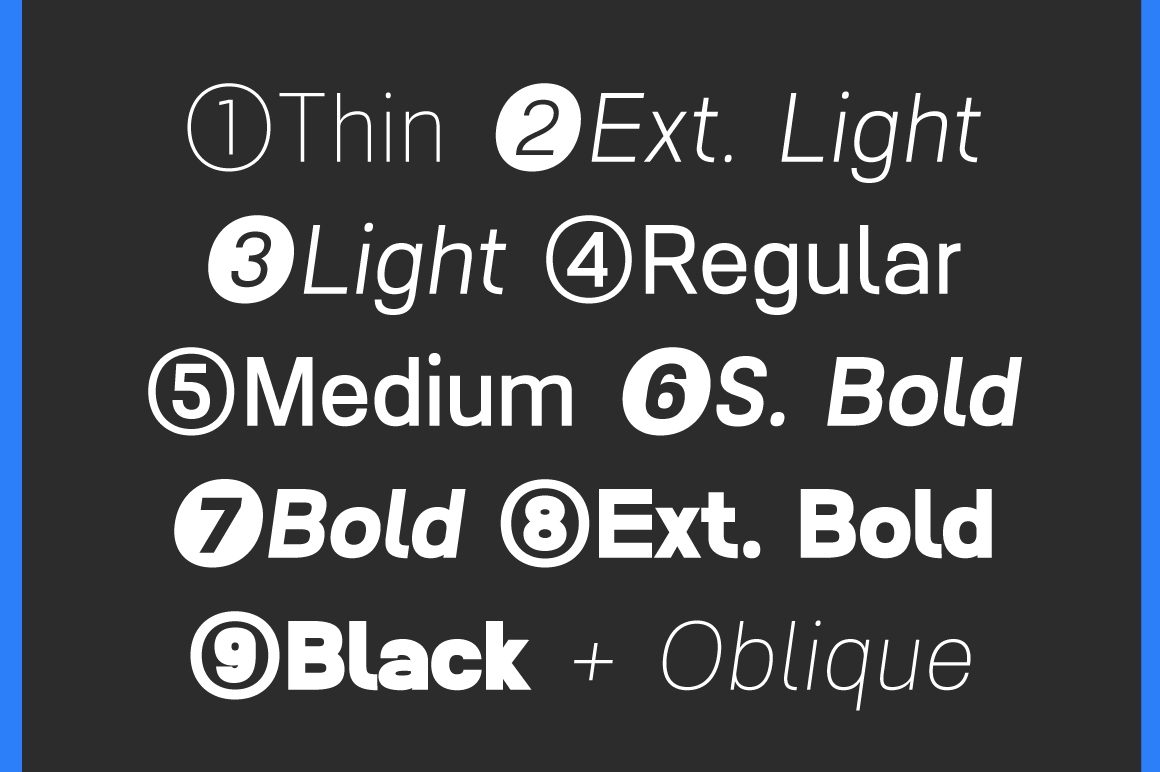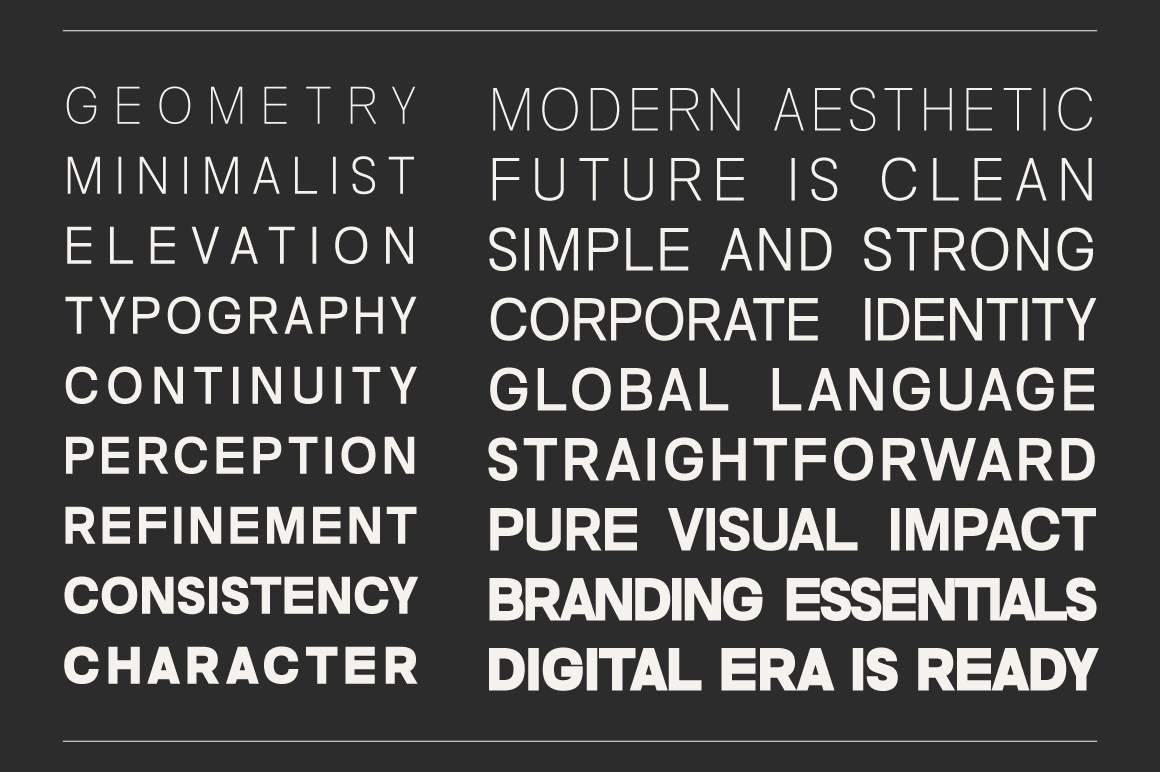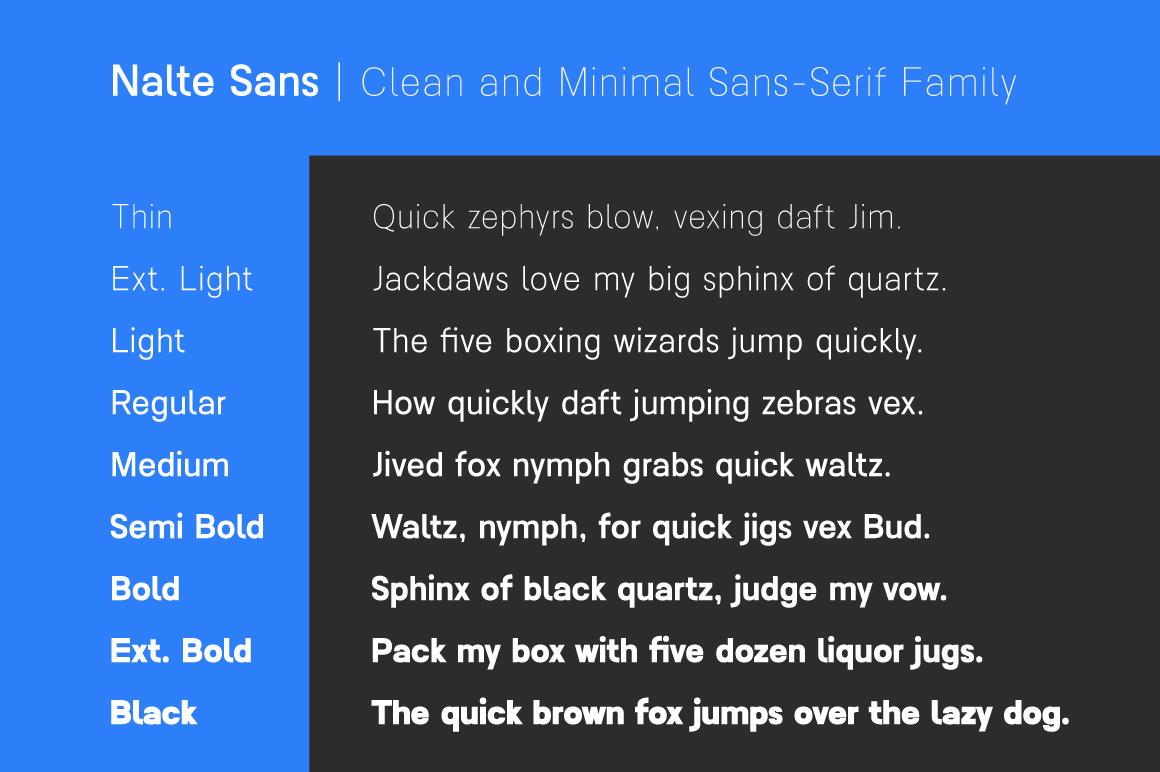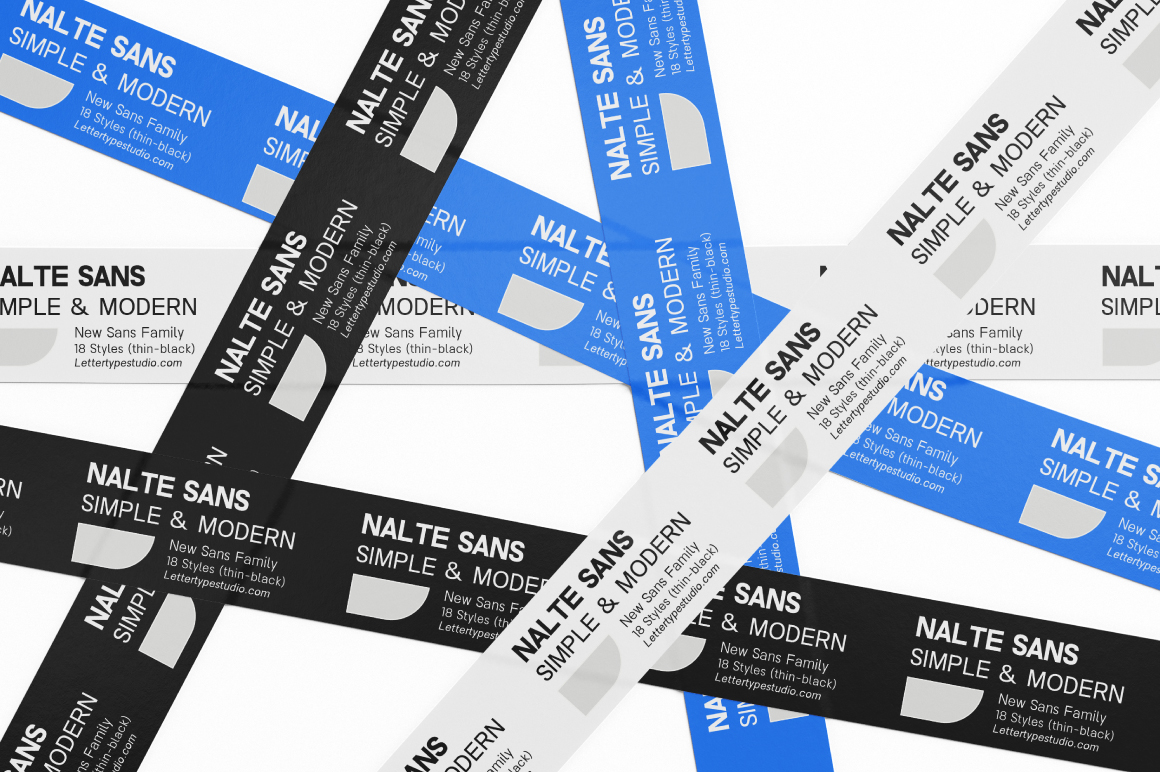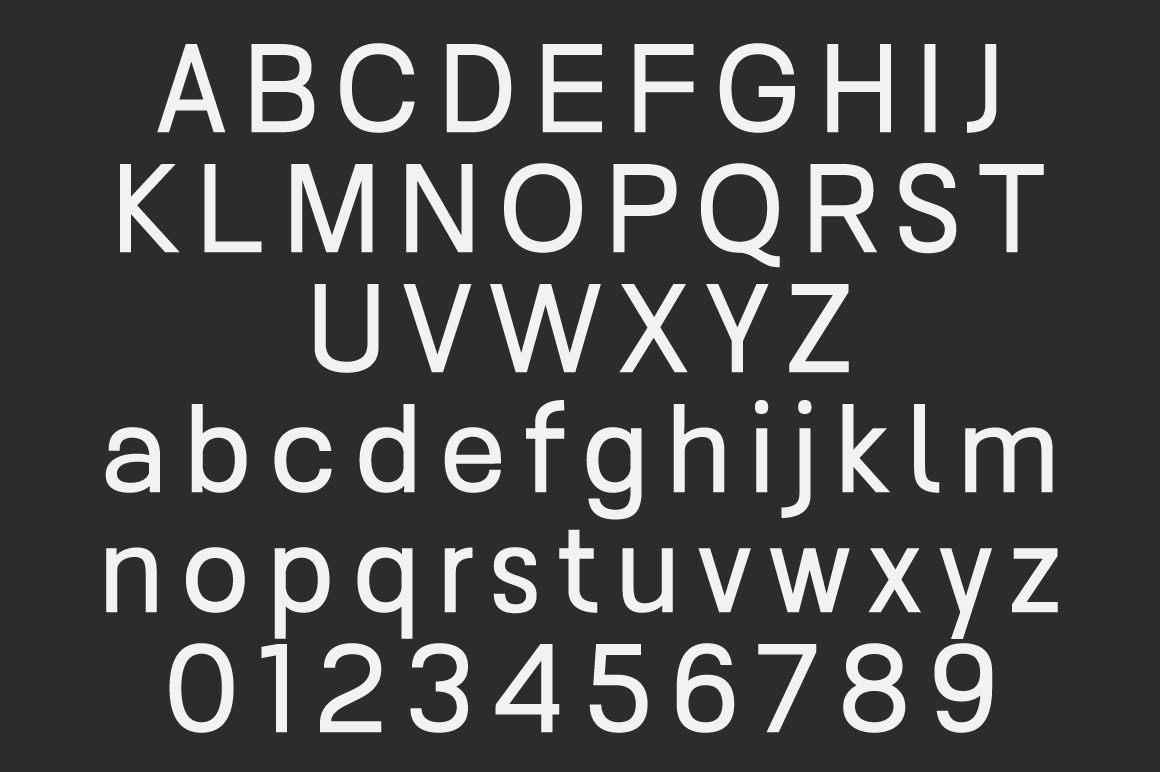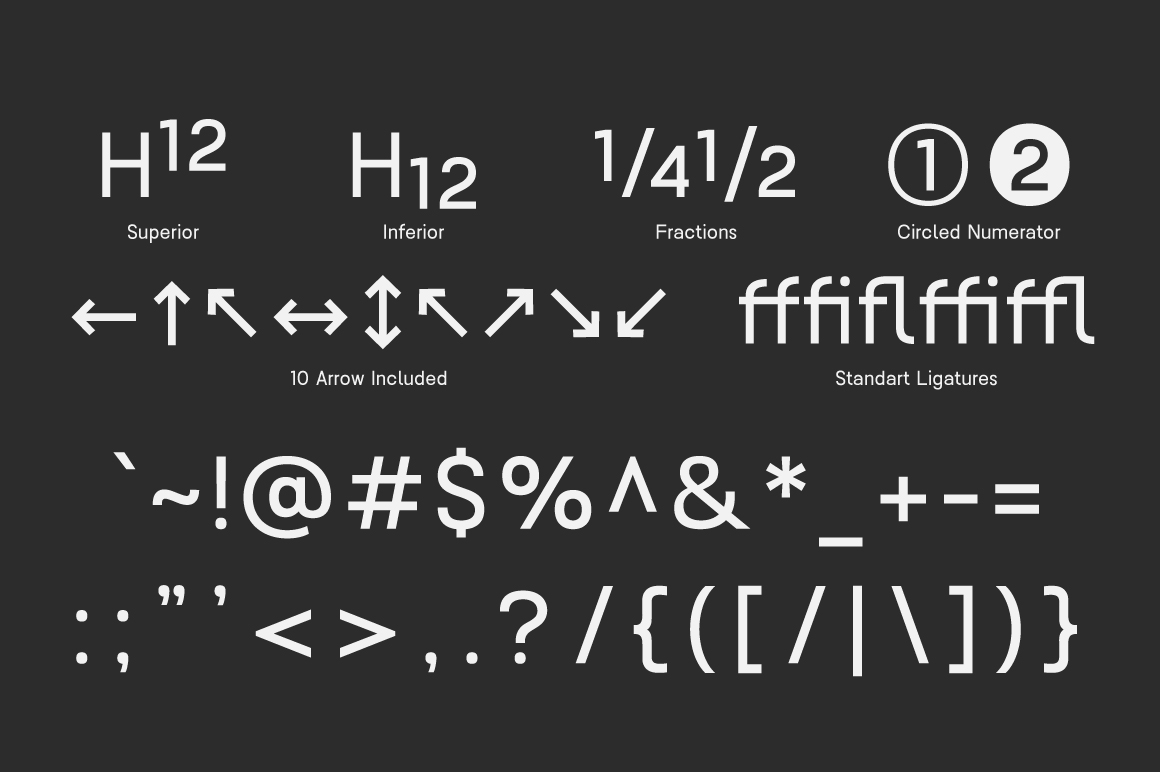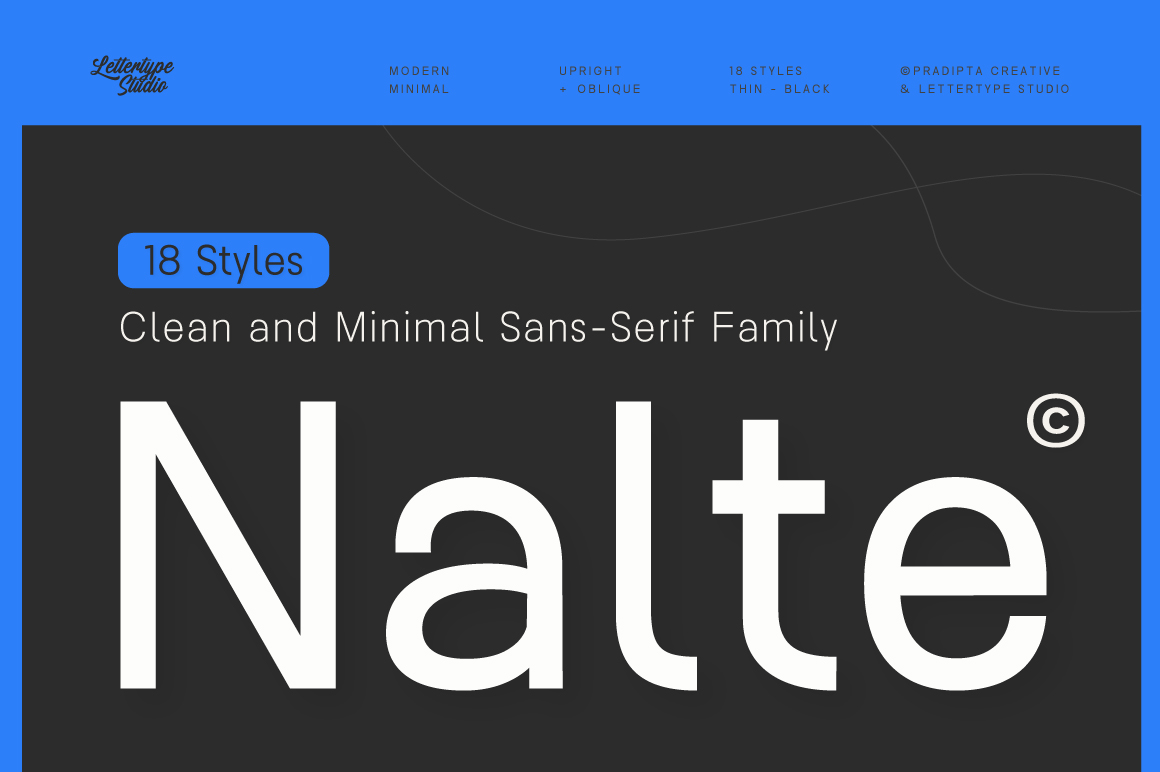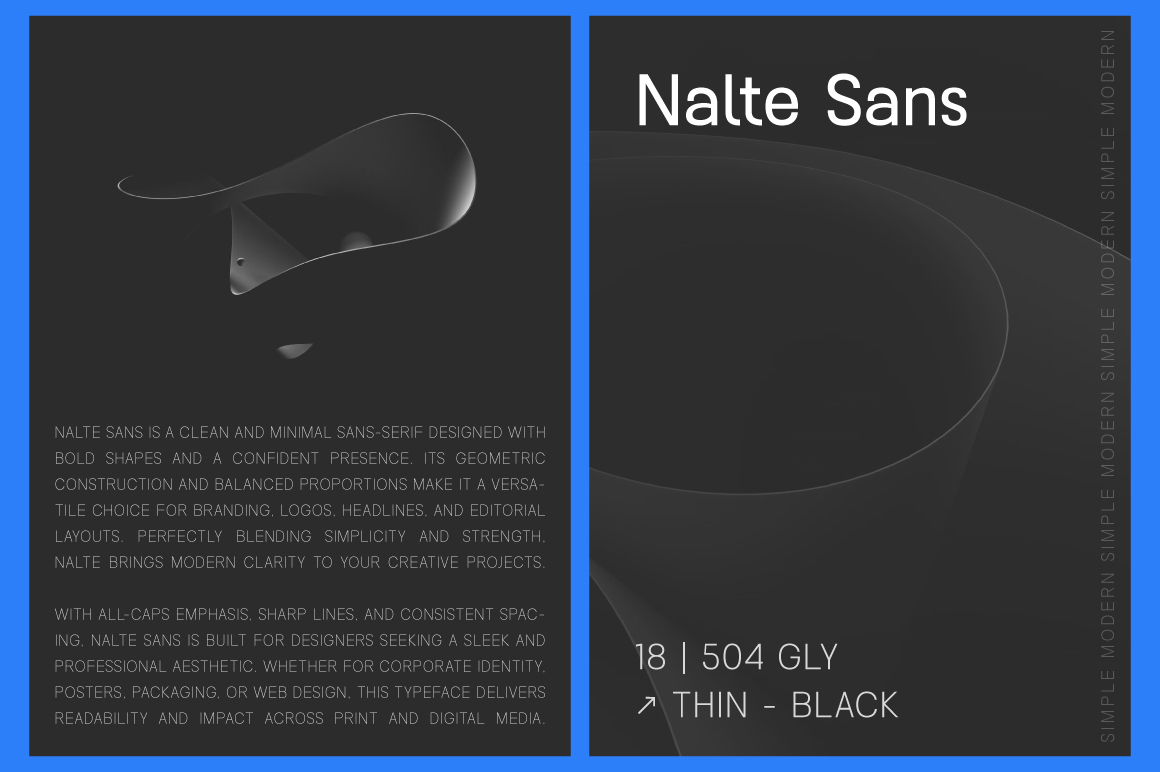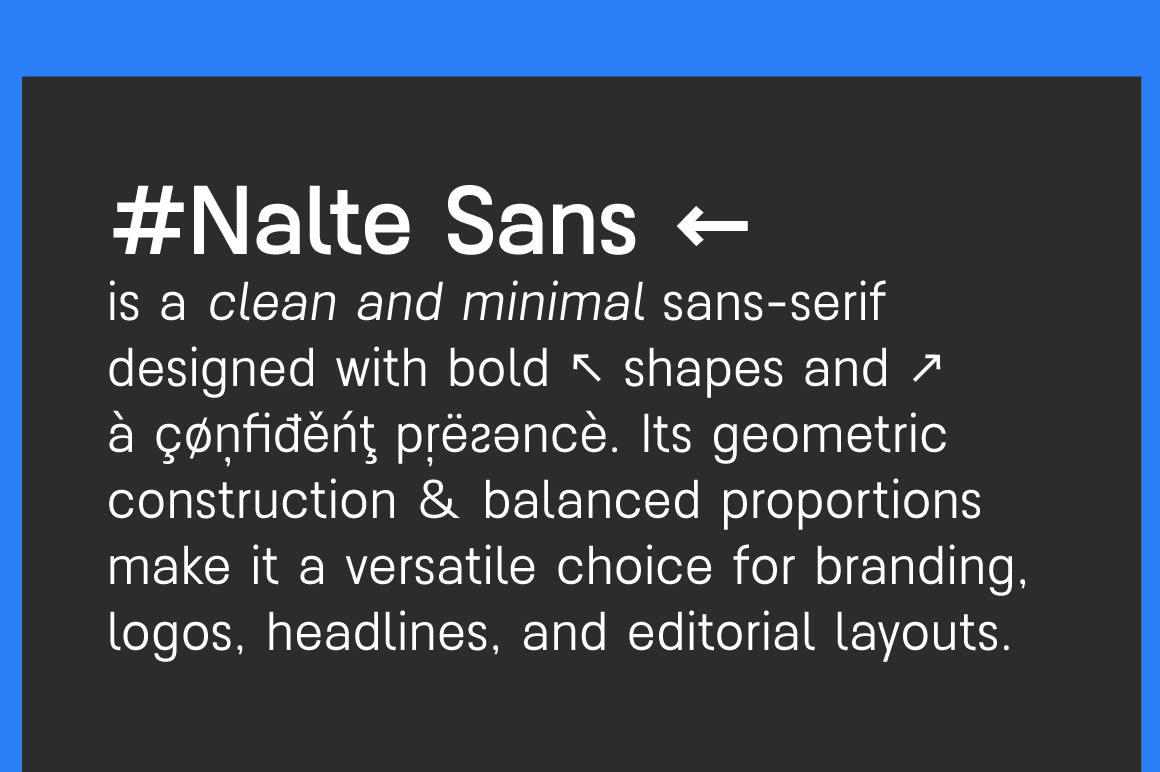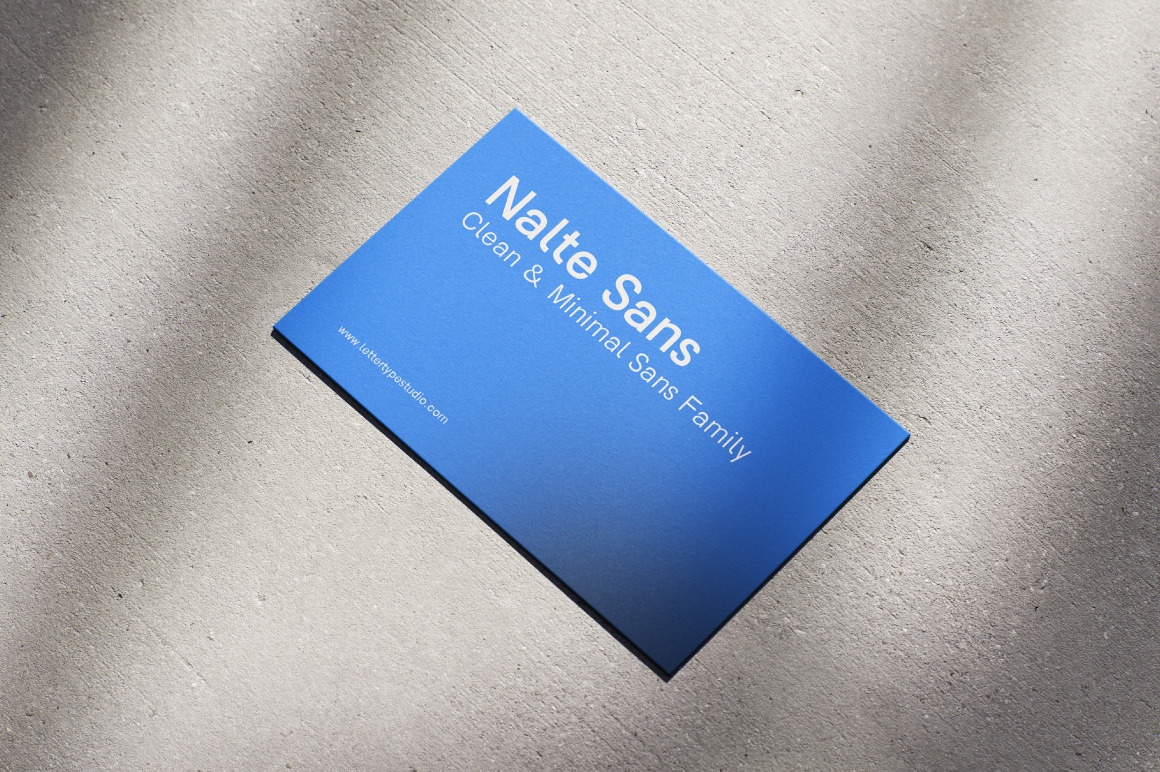
Nalte Sans is a minimal and bold display typeface built for striking branding and clean visual presence. With sharp geometric forms and a clean structure, Nalte delivers the perfect balance of modern boldness and timeless simplicity. Its short and punchy name reflects the font’s strong and confident style, making it ideal for logotypes, corporate identity, and editorial design.
Designed with branding in mind, Nalte shines in headlines, packaging, posters, and digital hero sections. Its minimal letterforms make it versatile across print and digital media, while its bold presence ensures that every word carries impact. Whether for fashion, tech, or creative branding, Nalte is a display font that makes a statement with clarity and power.
Nalte Features:
• 18 Styles + Variable (VF)
• Upright & Oblique
• Alternates: a & y (ss01) & Extra Currency (฿,₭, ₱, ₸, ₹, ₺, & ₽)
• Extra glyphs: circled numerals ①–⑩ & arrows (← ↑ → ↓ ↔ ↕ ↖ ↗ ↘ ↙)
• 504 Glyphs Total
• 270+ Languages Support
• Corporate identity & tech startup branding
• Editorial, magazine & digital publication layouts
• Web, UI/UX, and product interface design
• Clean logo design & modern business presentations
• Packaging and marketing materials with minimal aesthetic
Nalte Sans